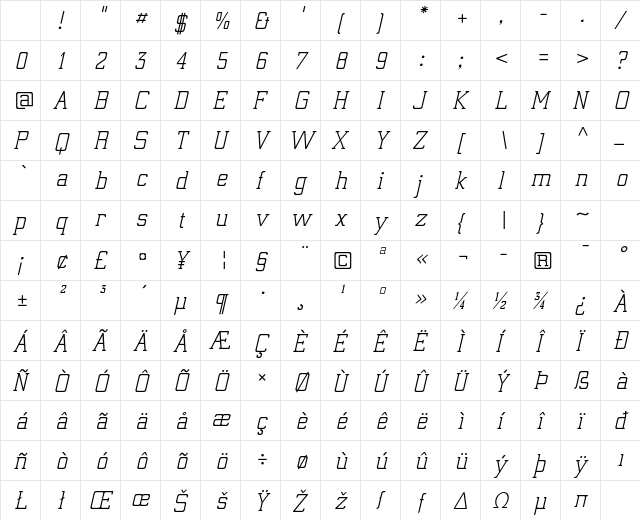
Electrum ADF Exp is a composed and adaptable typeface that performs quietly and consistently across a wide range of design contexts. The slanted form adds forward momentum and visual energy.
Pro Tip: Use Electrum ADF Exp for emphasis, pull quotes, and subheadings where its slanted energy can add rhythm to the layout.